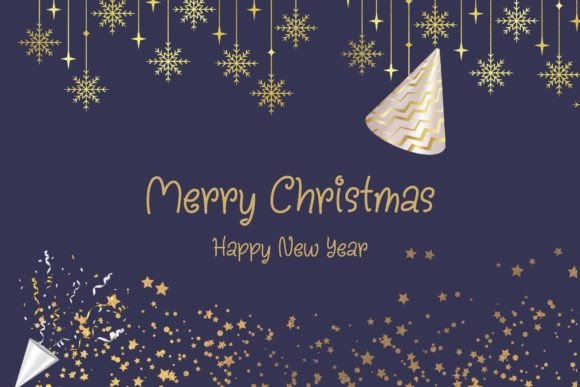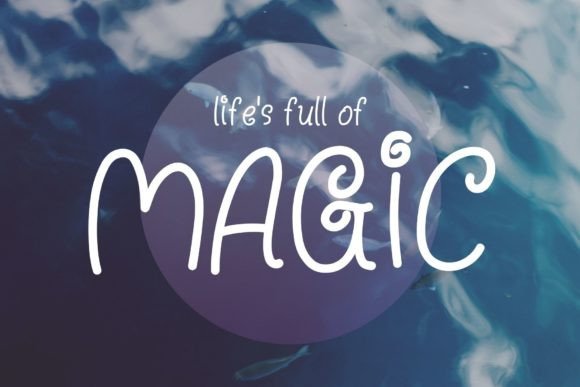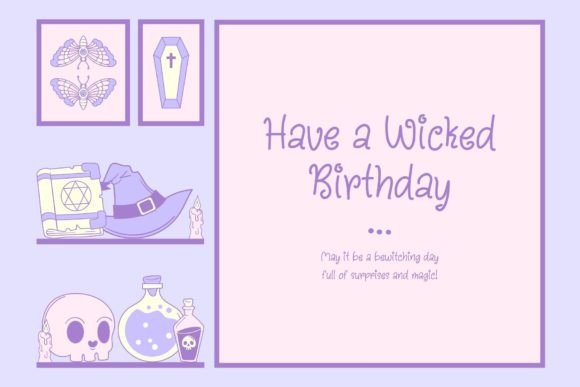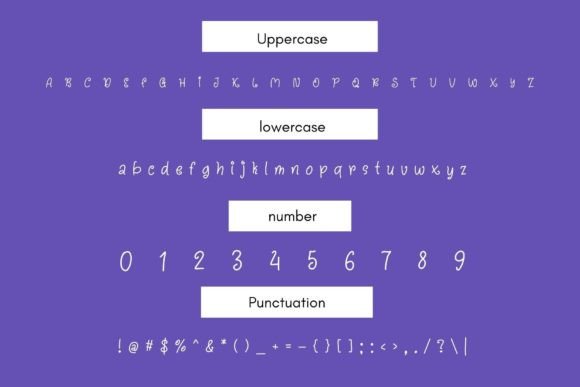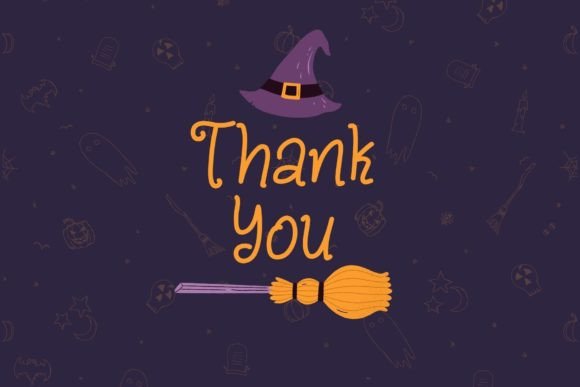
The Deacon Font: A Playful and Authentic Addition to Your Designs
This cute handwritten font embodies playfulness and authenticity, making it the perfect choice for all your favorite projects, from blog posts and logos to branding, ads, invitations, greeting cards, planners, photo albums, decorations, and much more.
An Honest Review of Deacon Font
- ✨ Playful and carefree vibe that’s perfect for creative projects
- 💕 Extensive character set, including glyphs and stylistic alternates
- 🎉 Works beautifully in both digital and print formats
While Deacon font is an excellent choice for many projects, there are a few things to keep in mind: 🤔
- ⚠️ May not be the best choice for very formal or corporate designs
- ⚠️ Some users may find the font a bit too playful or childish for certain projects
The Backstory of Deacon Font
Deacon font was designed with the intention of creating a playful, yet authentic font that would bring a touch of personality to any design. The designer, inspired by the charm of handwritten letters and the joy of creative expression, crafted Deacon font to be a versatile and reliable choice for designers, crafters, and creative hobbyists alike.
| Font Name | Deacon Font |
| Author | Brown Cupple Fonts |
Q: What is Deacon font best used for?
A: Deacon font is perfect for creative projects, such as blog posts, logos, branding, ads, invitations, greeting cards, planners, photo albums, decorations, and more.
Q: Is Deacon font suitable for formal designs?
A: While Deacon font is a beautiful and elegant font, it may not be the best choice for very formal or corporate designs. It’s better suited for creative and playful projects.